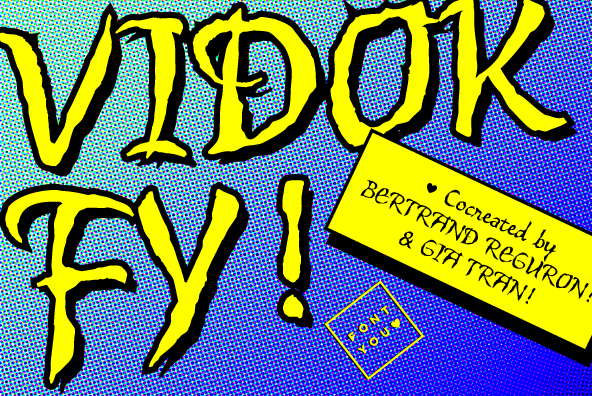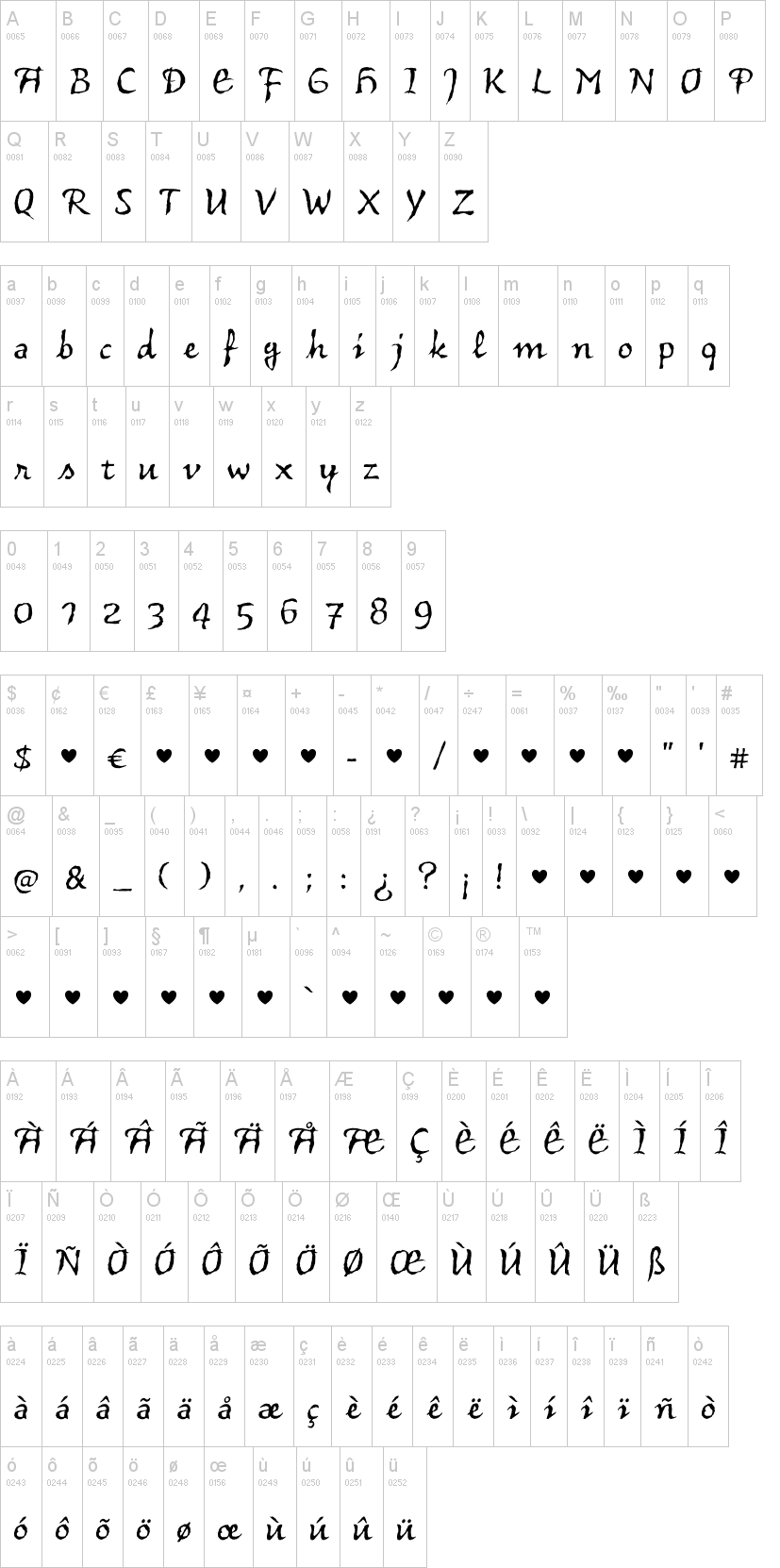
Vidok FY, an bloody old-fashioned script font
Zombies gonna like!
Vidok was co-created by Gia Tran and Bertrand Reguron on fontyou.com, the first collaborative type foundry.